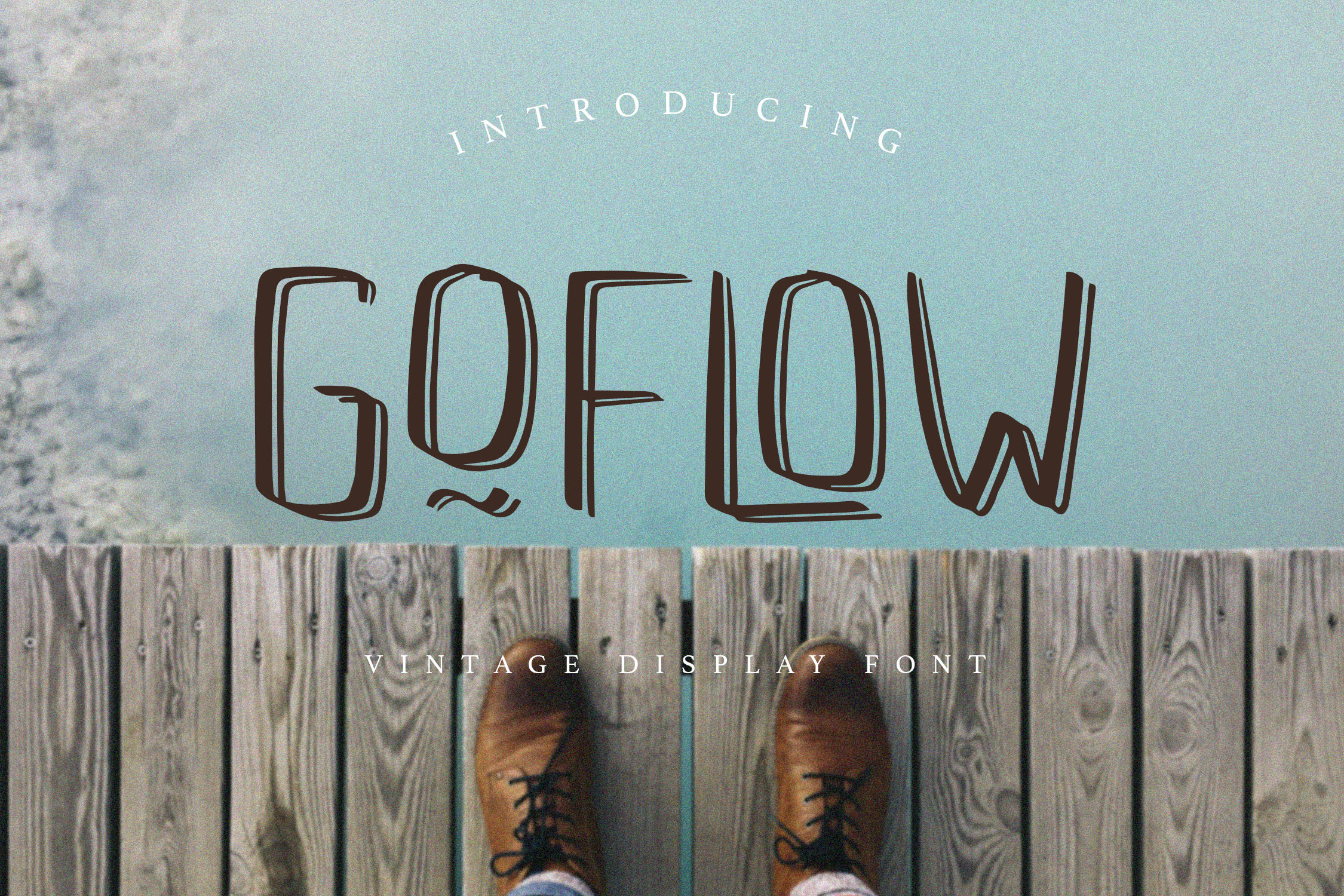
GOFLOW - Vintage Display Font
GOFLOW is a beautiful display font with vintage style. This font can be applied to support the graphic appearance of the product to be more attractive and unique. This font is suitable for making previews and covers, logo designs, shirt designs, and other graphic needs.
This font made with hand scratches directly and then processed into font processing software.
GOFLOW font with uppercase characters A-Z, lowercase characters a-z, punctuation, stylistic alternate, and ligature characters that enhance this font shape.
-Ligature
-Stylistic Alternate